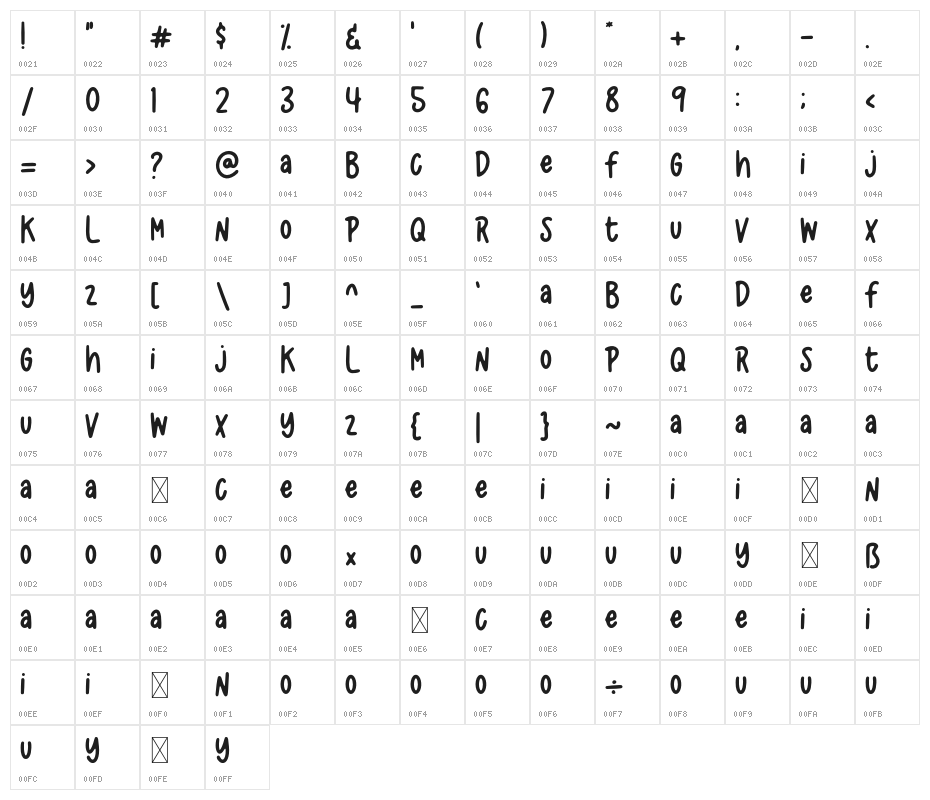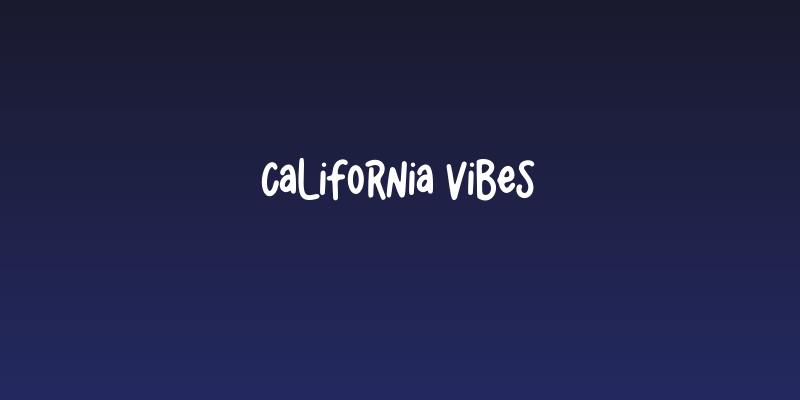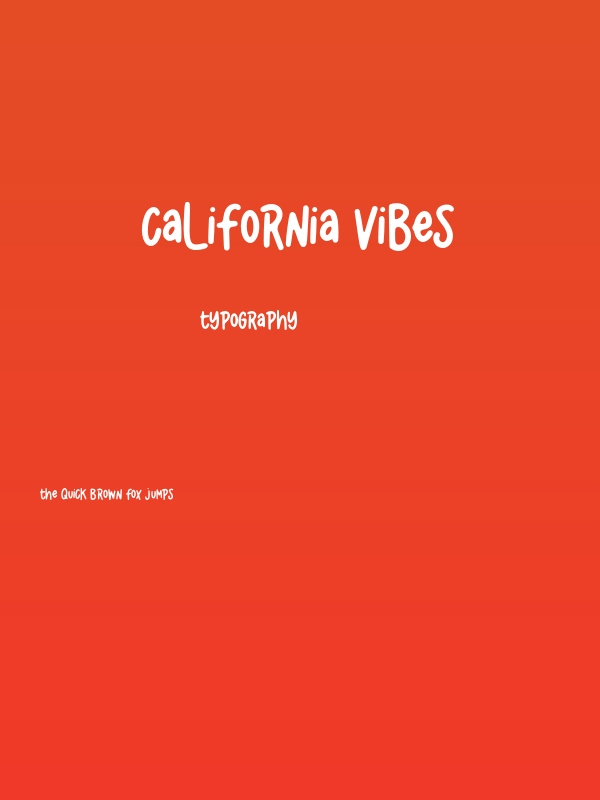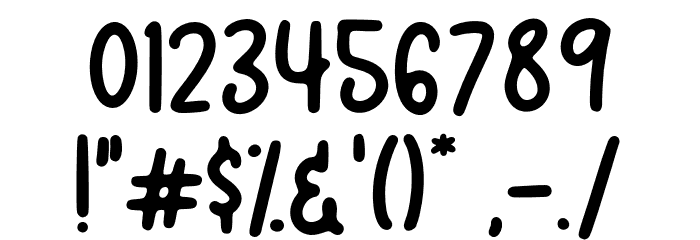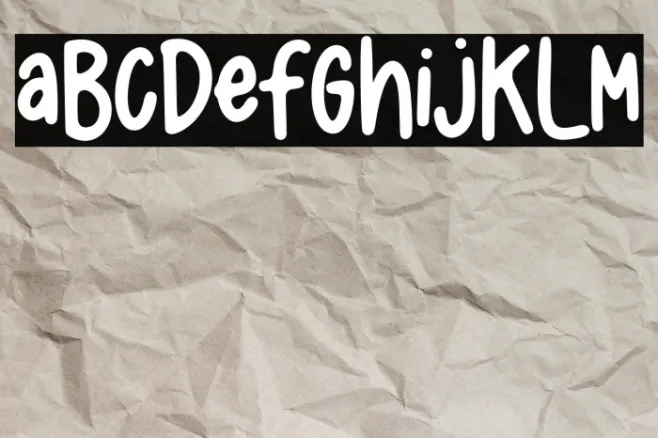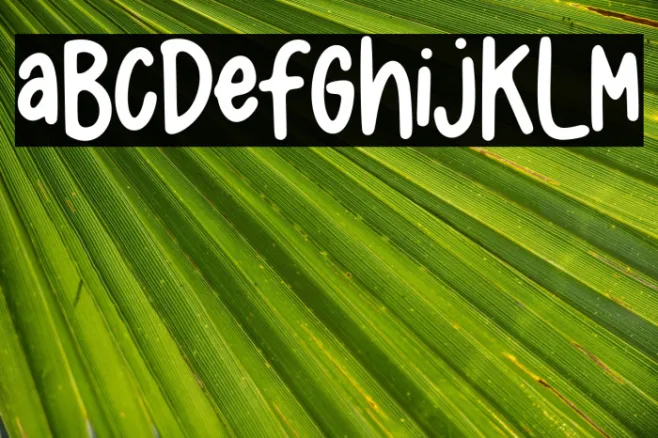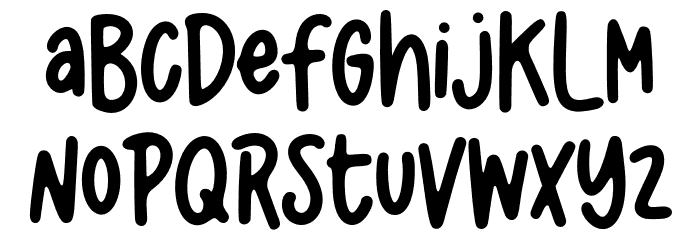
California Vibes Font
California Vibes Description
This font exudes a playful and casual vibe, characterized by its bold and rounded letterforms. The strokes are consistent in thickness, giving it a uniform appearance that is easy on the eyes. The letters are slightly tilted, adding a dynamic and lively feel. The lowercase letters mirror the uppercase in style, maintaining the same playful essence. The numbers and special characters follow the same design principles, ensuring a cohesive look across all characters. This font is perfect for projects that require a fun and approachable aesthetic.
| Proposed Projects | Ideal for children's books, playful branding, casual invitations, and social media graphics. |